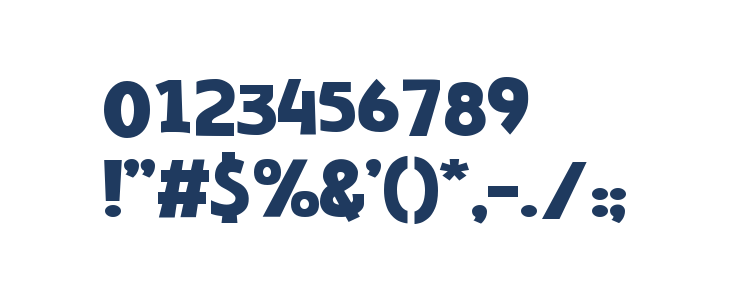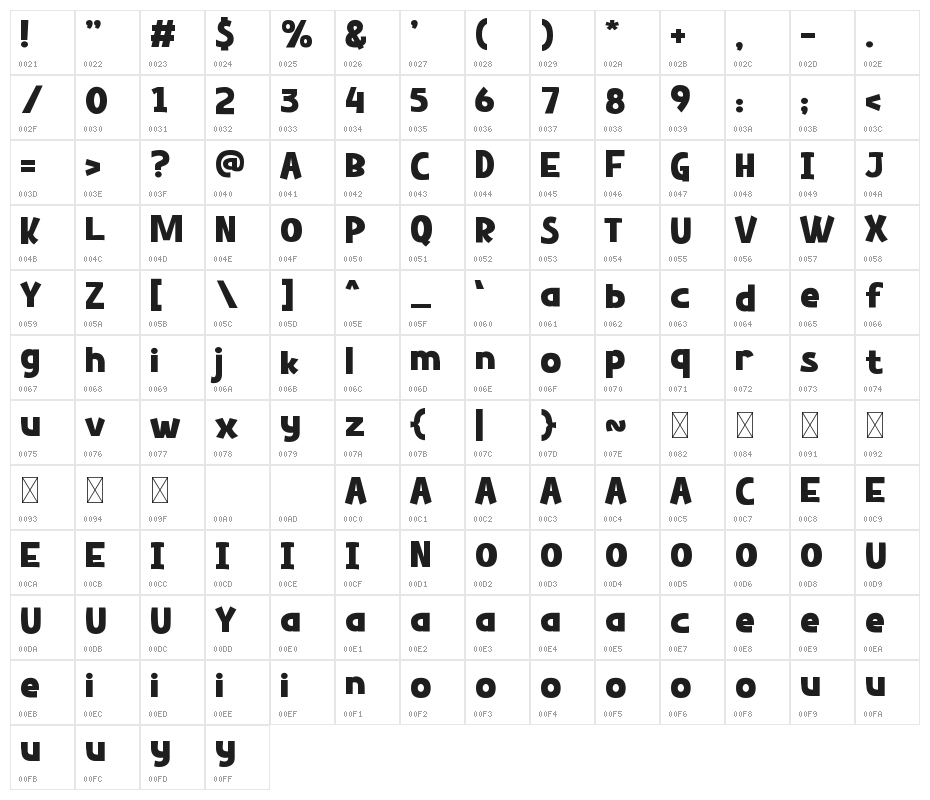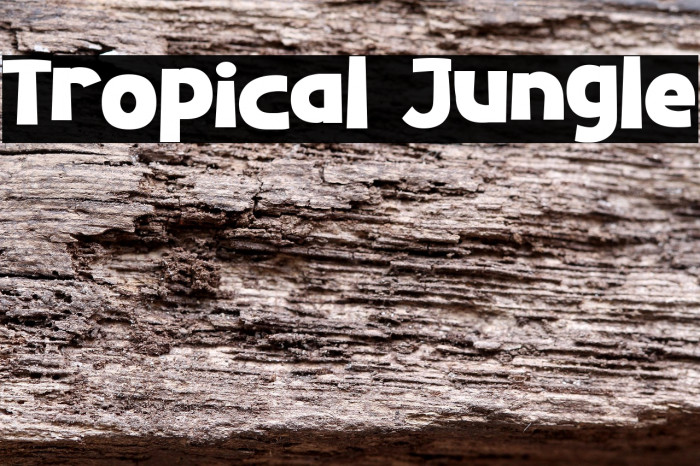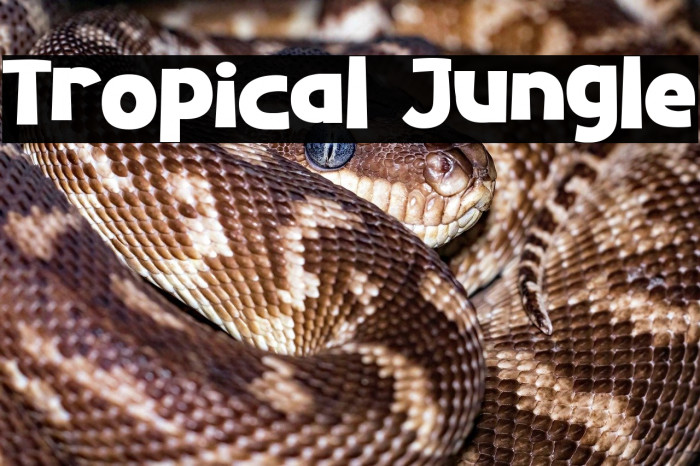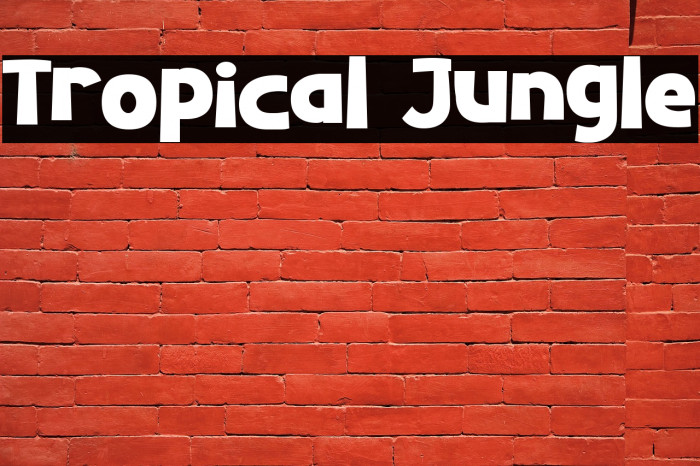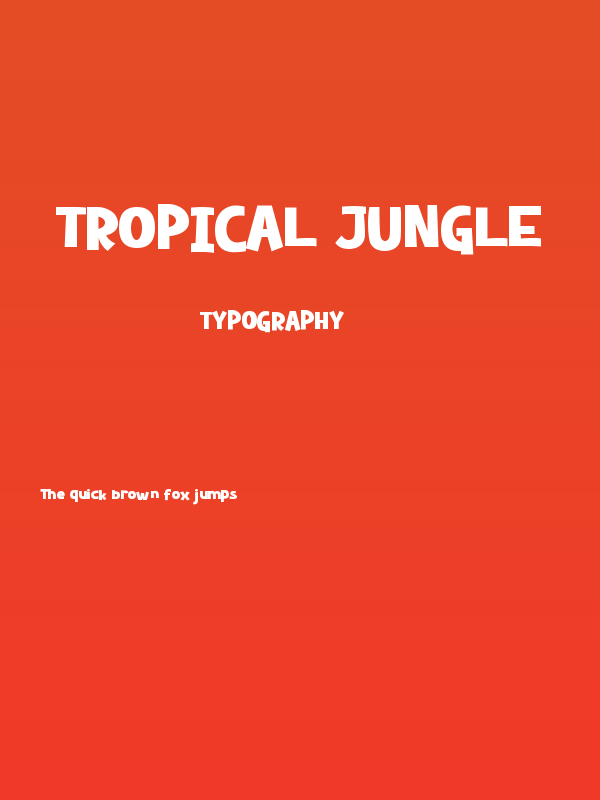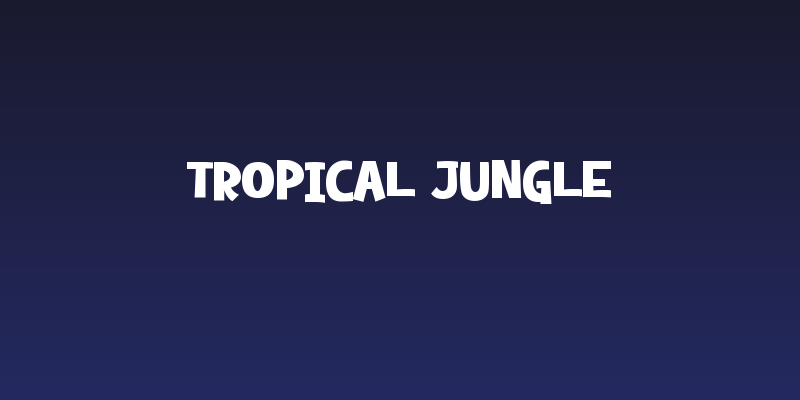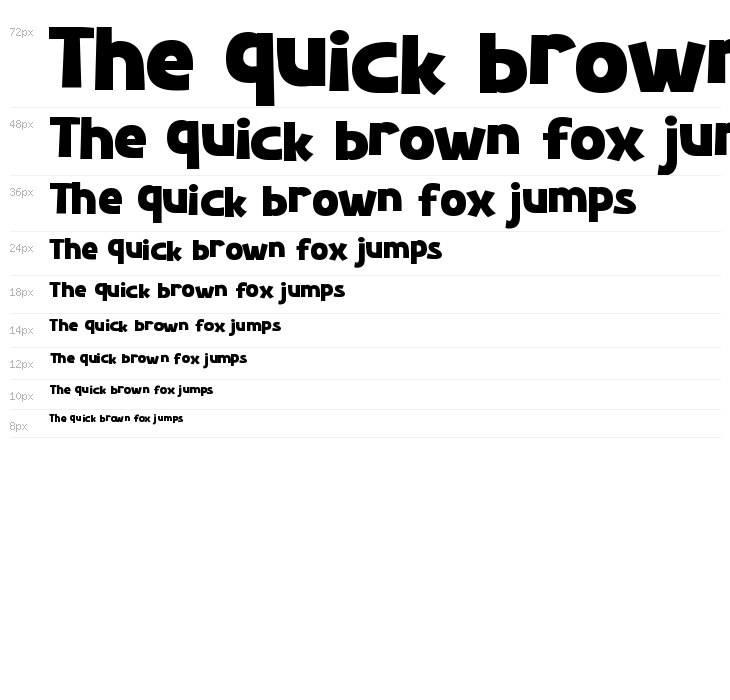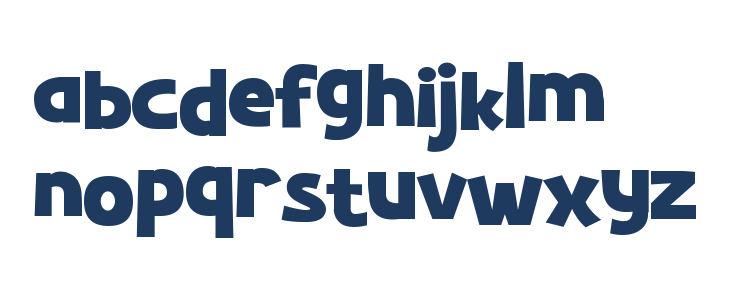
Tropical Jungle Font
Tropical Jungle Description
This font features a bold and playful design with a distinctively chunky and rounded appearance. The characters have a whimsical and slightly irregular form, giving them a lively and energetic feel. The uppercase letters are robust and commanding, while the lowercase letters maintain a consistent style with a touch of quirkiness. Numbers and special characters follow the same playful aesthetic, making the font suitable for creative and informal applications. The overall style is reminiscent of a tropical or jungle theme, with a sense of fun and adventure.
| Proposed Projects | Ideal for children's books, playful branding, event posters, and tropical-themed designs. |